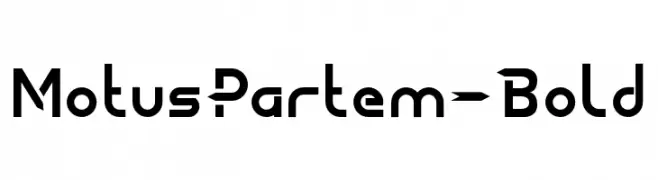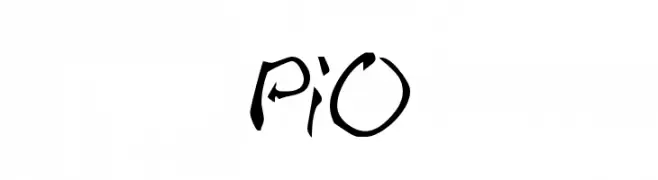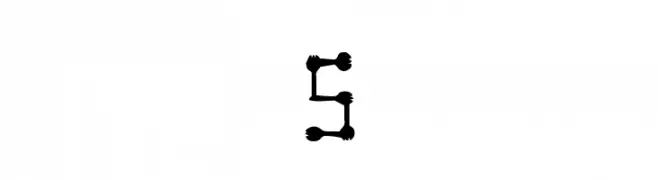
A playful, hand-drawn font with rounded, comic-like characters.
A playful, spork-themed decorative font with bold strokes and high contrast.
A bold, calligraphic font with sharp angles and dynamic strokes.
A bold, geometric font with a modern and futuristic style.
A bold, geometric font with artistic flair and dynamic shapes.